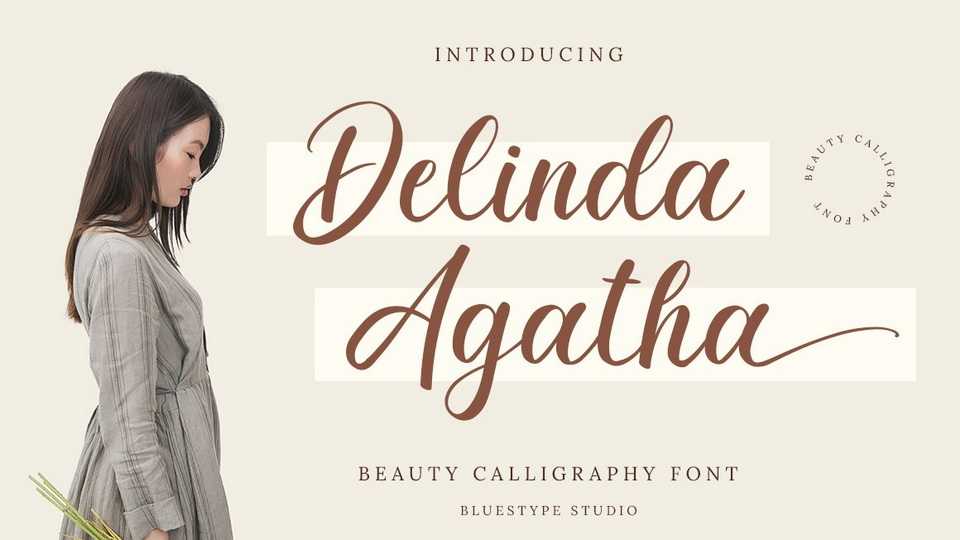
Download Delinda Agatha font, a sweet and simple calligraphy typeface with a beauty feel. Delinda Agatha font is perfect for use on branding, fashion, weddings, t-shirt designs, logotype, magazines, quotes, lettering, watermarks, invitations.